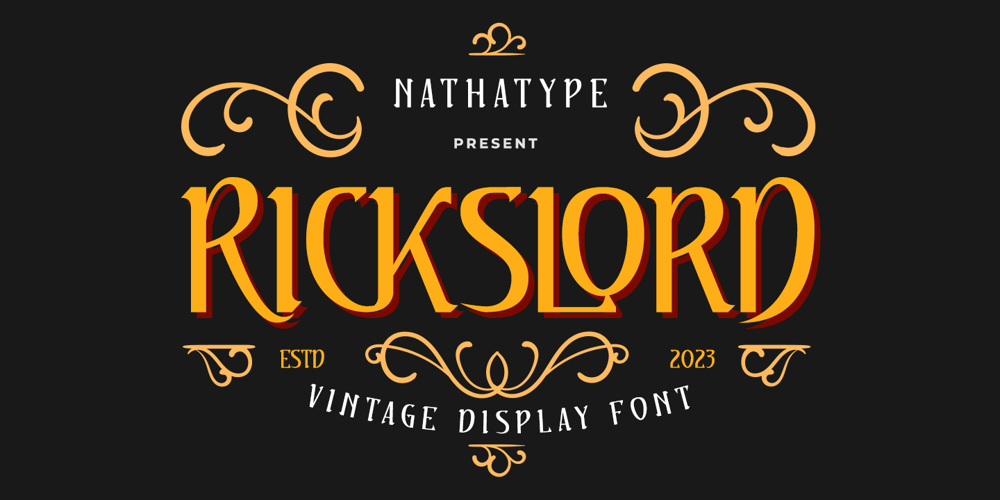
Rickslord
Rickslord font
Rickslord Font Family was designed by Donis Miftahudin and published by Nathatype. Rickslord contains 1 styles and family package options. Rickslord is an uppercase display font that transports you back in the early 20th century. Some characters show high contrast between thick and thin strokes, creating a dramatic visual impact, while others maintain a more consistent weight for a balanced appearance. This blend of contrasts adds an unexpected dynamic quality to the text, making every word a work of art. Beautiful ornaments are included as a bonus. Rickslord fits in headlines, logos, branding materials, and many more.